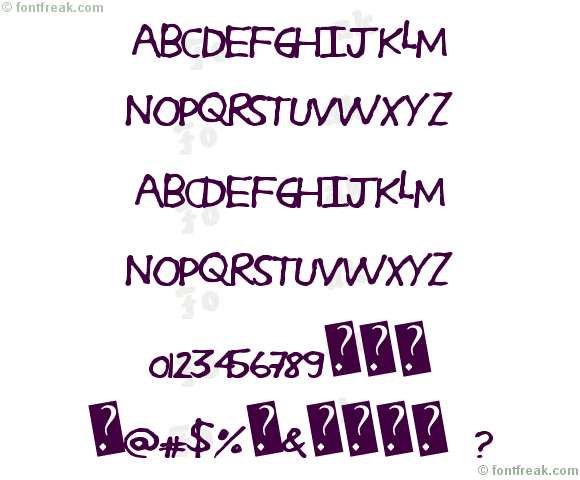
SodaCrack
SodaCrack by Xerographer Fonts is a playful and whimsical display font that captures attention with its unique character. This handwritten style features a casual, slightly uneven stroke weight, lending it an organic and approachable feel. The font showcases a moderate contrast in thickness, which enhances its playful demeanor and makes it suitable for various creative applications. With its charming, rounded letters and generous spacing, SodaCrack is designed to stand out while ensuring readability.
Ideal for a range of uses, SodaCrack is perfect for crafting vibrant wedding invitations that exude a fun and informal vibe. It also shines on movie posters, bringing a sense of energy and spontaneity that can attract potential viewers. Restaurant menus benefit from this font's inviting character, making dishes feel more approachable and enjoyable. Additionally, content creators looking to add some flair to social media graphics will find SodaCrack a delightful choice, as it adds personality to any digital project.
The target audience for SodaCrack includes graphic designers seeking to enhance their projects with a distinctive touch, small business owners wanting to create unique branding, and content creators who aim to engage their audience with eye-catching visuals. As a freeware font, it offers accessibility to all, enabling creativity without breaking the bank.
What sets SodaCrack apart is its ability to blend whimsy with functionality. Its handwritten style provides a personal touch, making it ideal for projects aimed at fostering connection and warmth. Whether you’re designing a playful flyer or a charming invitation, the SodaCrack font free download is an excellent addition to your typography toolkit, ensuring your designs resonate with charm and creativity.